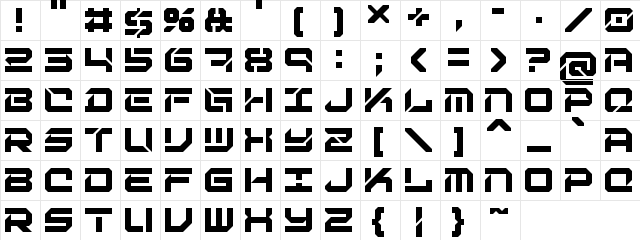
Digital Desolation Demi Free Font
Digital Desolation Demi
Style: Demi
Designer: japanyoshi
Design Context for Digital Desolation
Digital Desolation has a distinctly futuristic character, with geometric precision and clean angles that feel at home in technology, gaming, and sci-fi contexts.
Pro Tip: Try Digital Desolation with generous letter-spacing in UI labels and navigation - the geometric forms benefit from room to breathe.